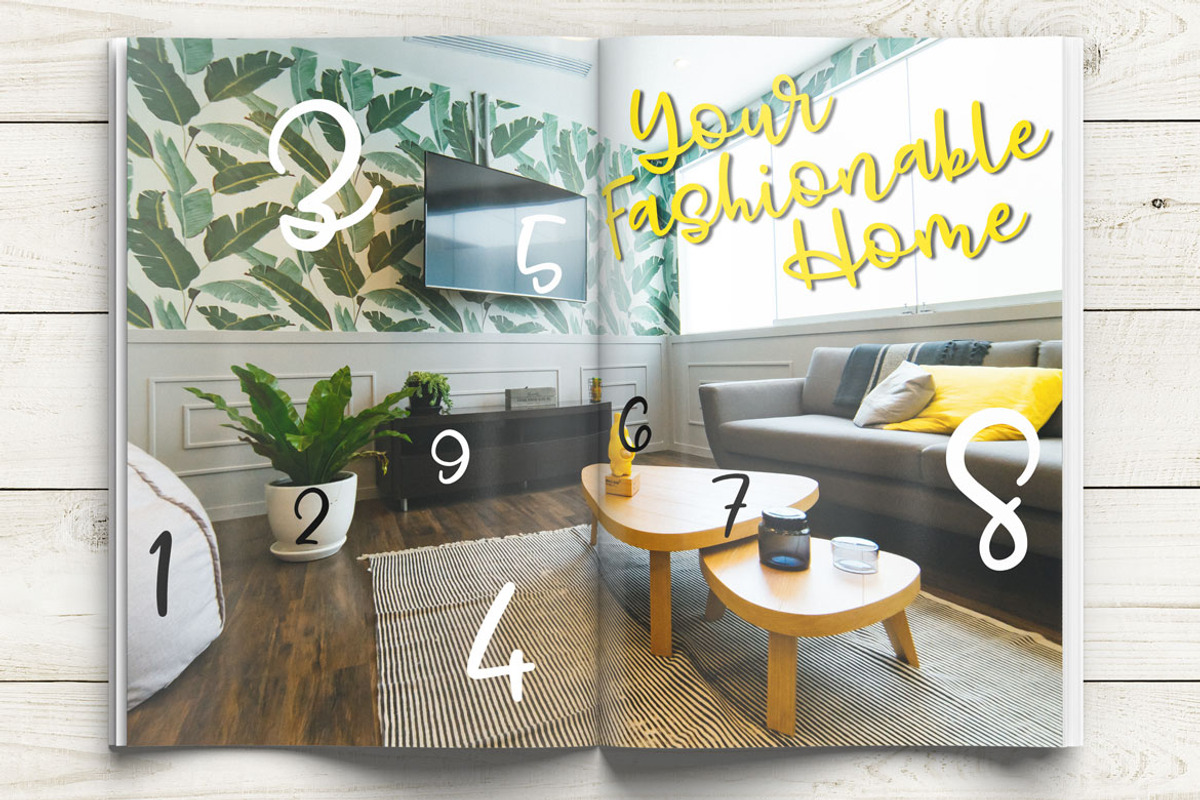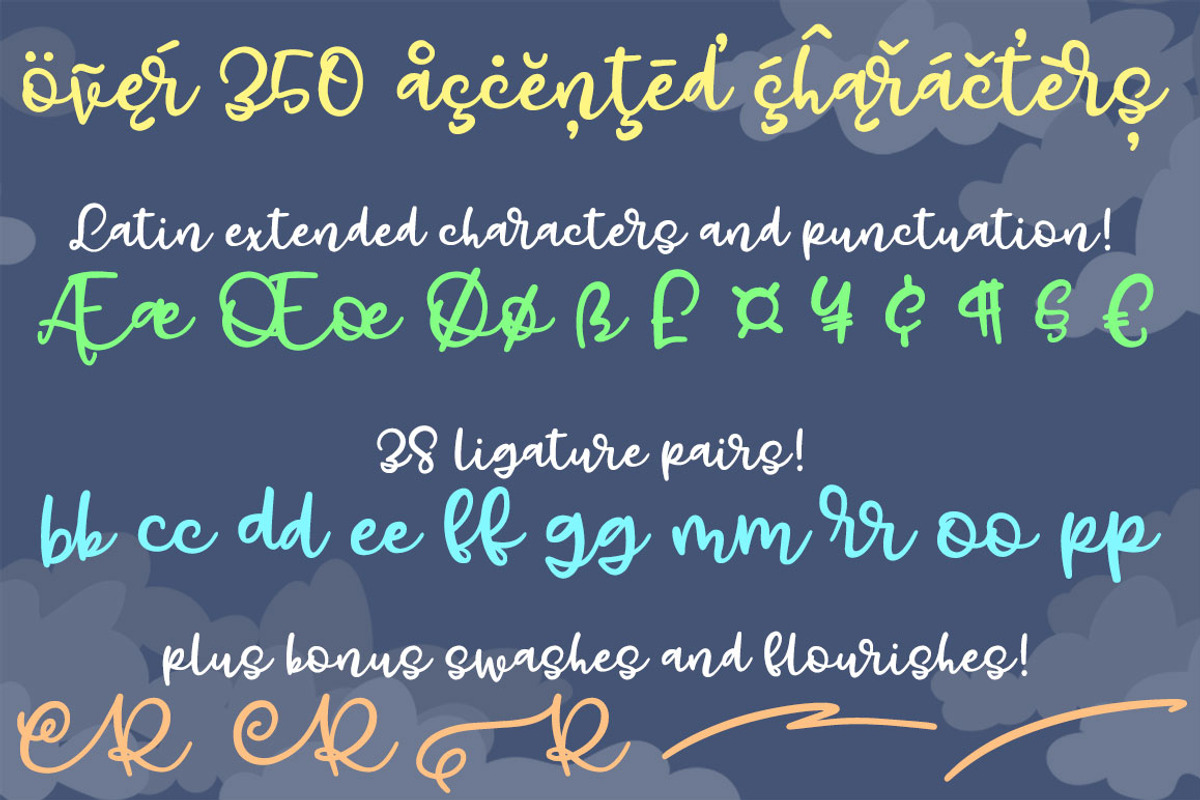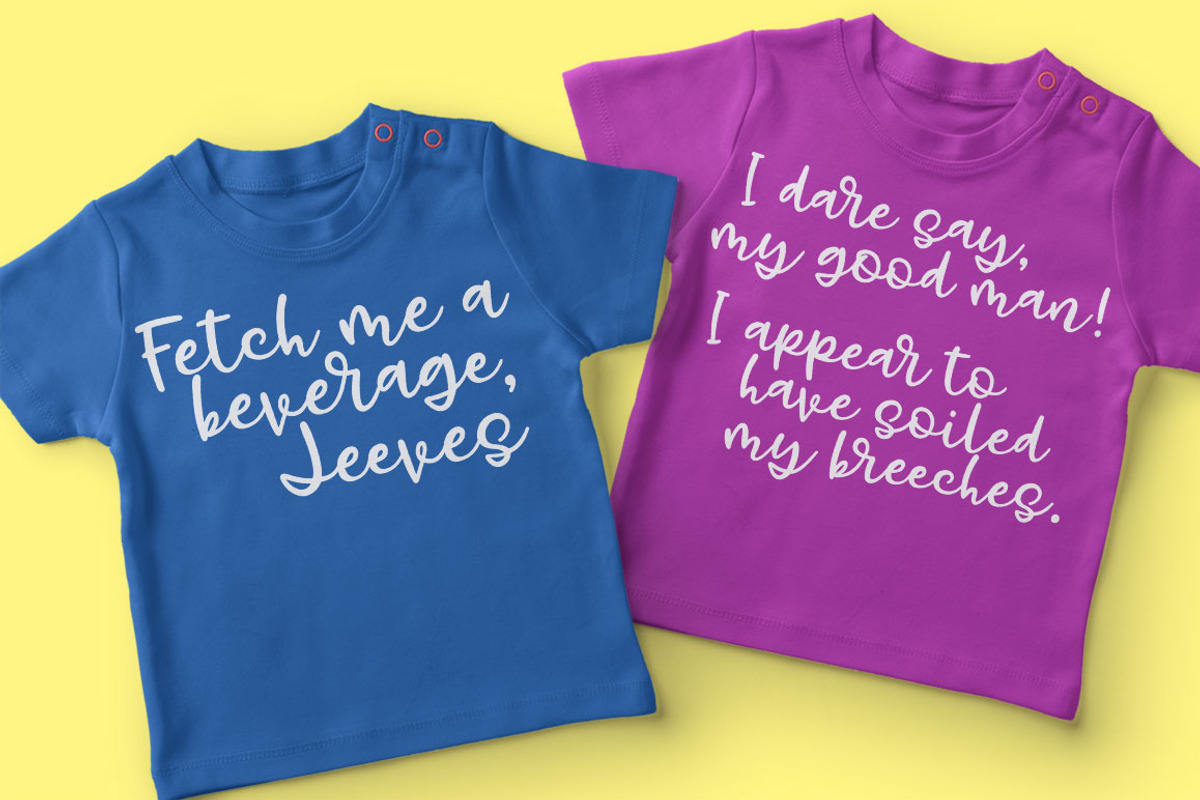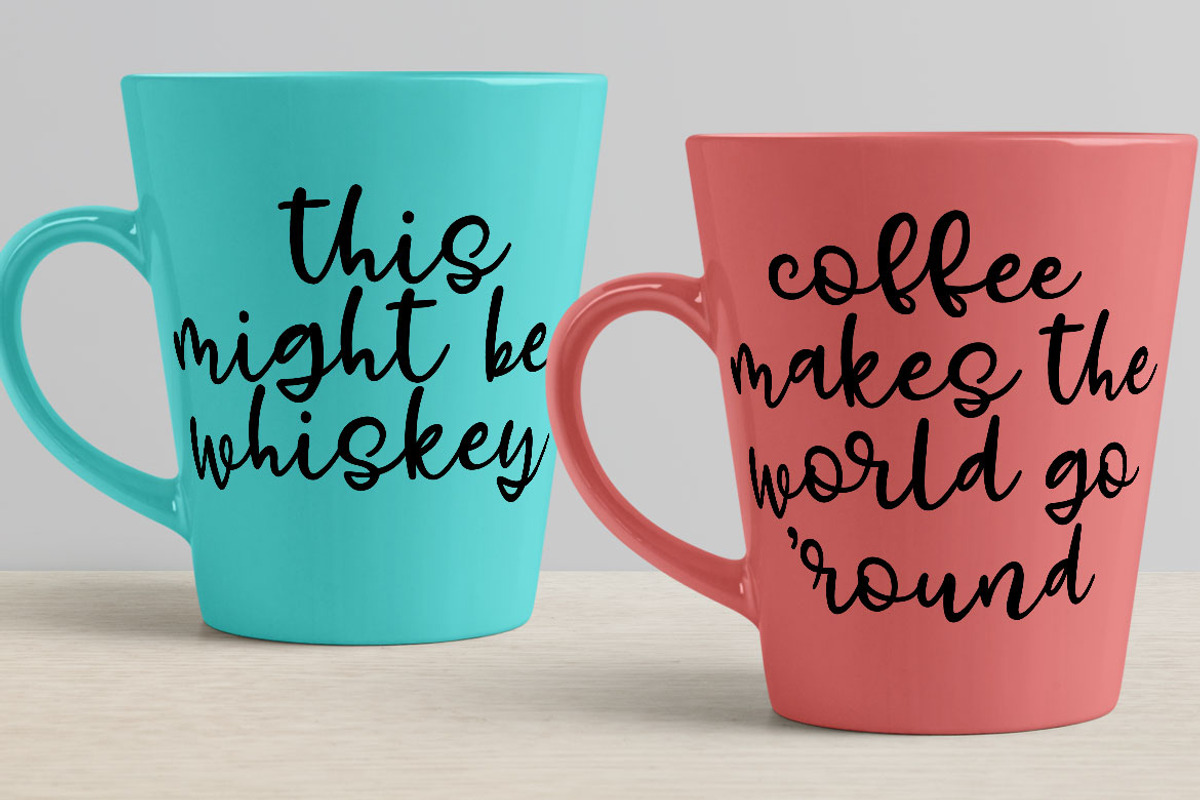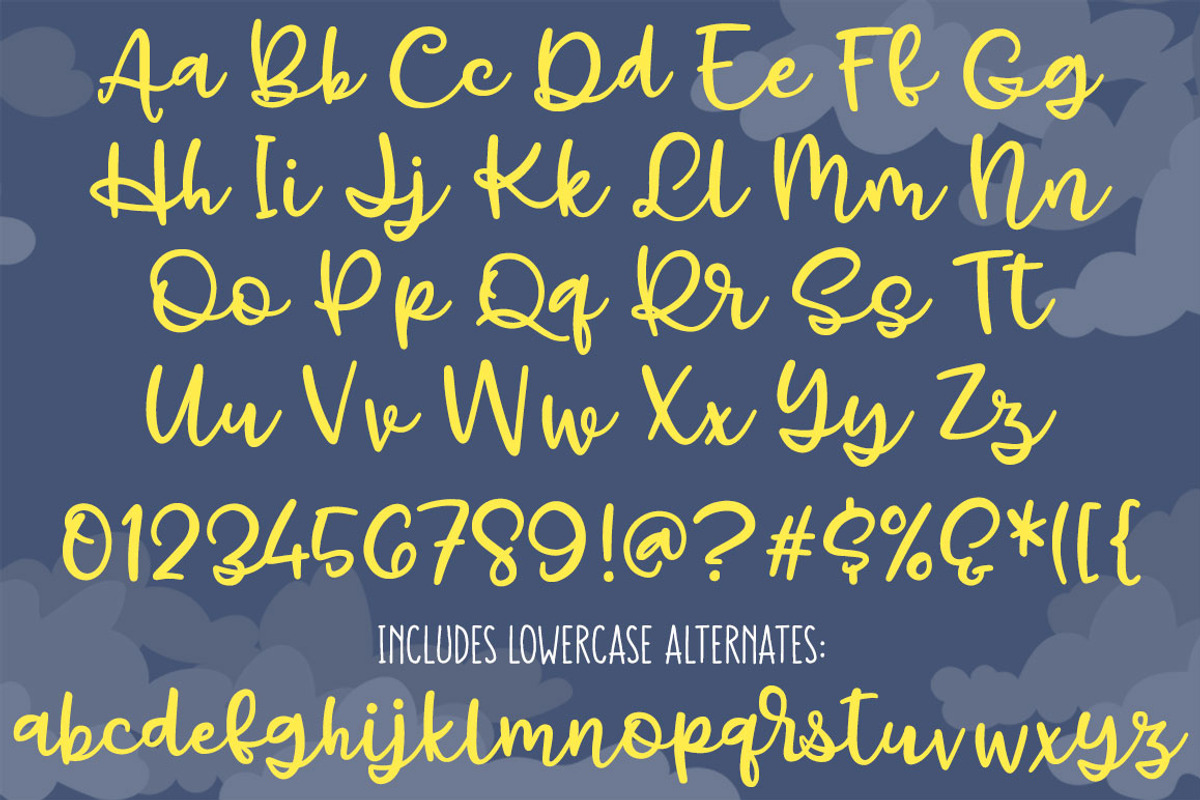
Gray Skies: handwritten script font
Gray Skies: handwritten script font by Missy Meyer is a font selected for branding, posters, packaging, typography.
- As usual, this font is packed with features: Uppercase A-Z, lowercase a-z, numbers 0-9, and a full set of punctuation Over 350 accented and
- Uppercase A-Z, lowercase a-z, numbers 0-9, and a full set of punctuation
Why Gray Skies: handwritten script font is worth a look
Gray Skies: handwritten script font by Missy Meyer fits naturally into Branding, posters, packaging, typography.